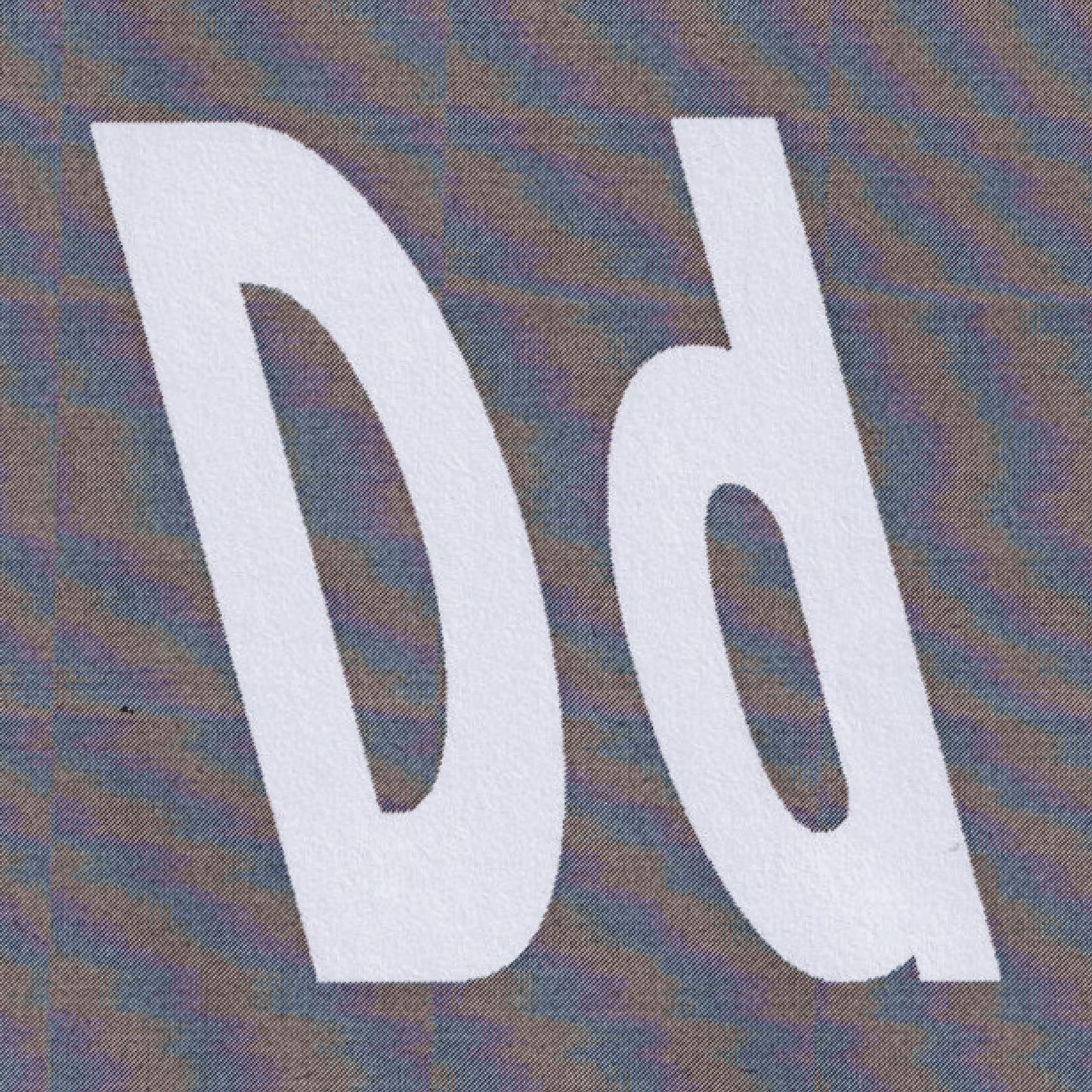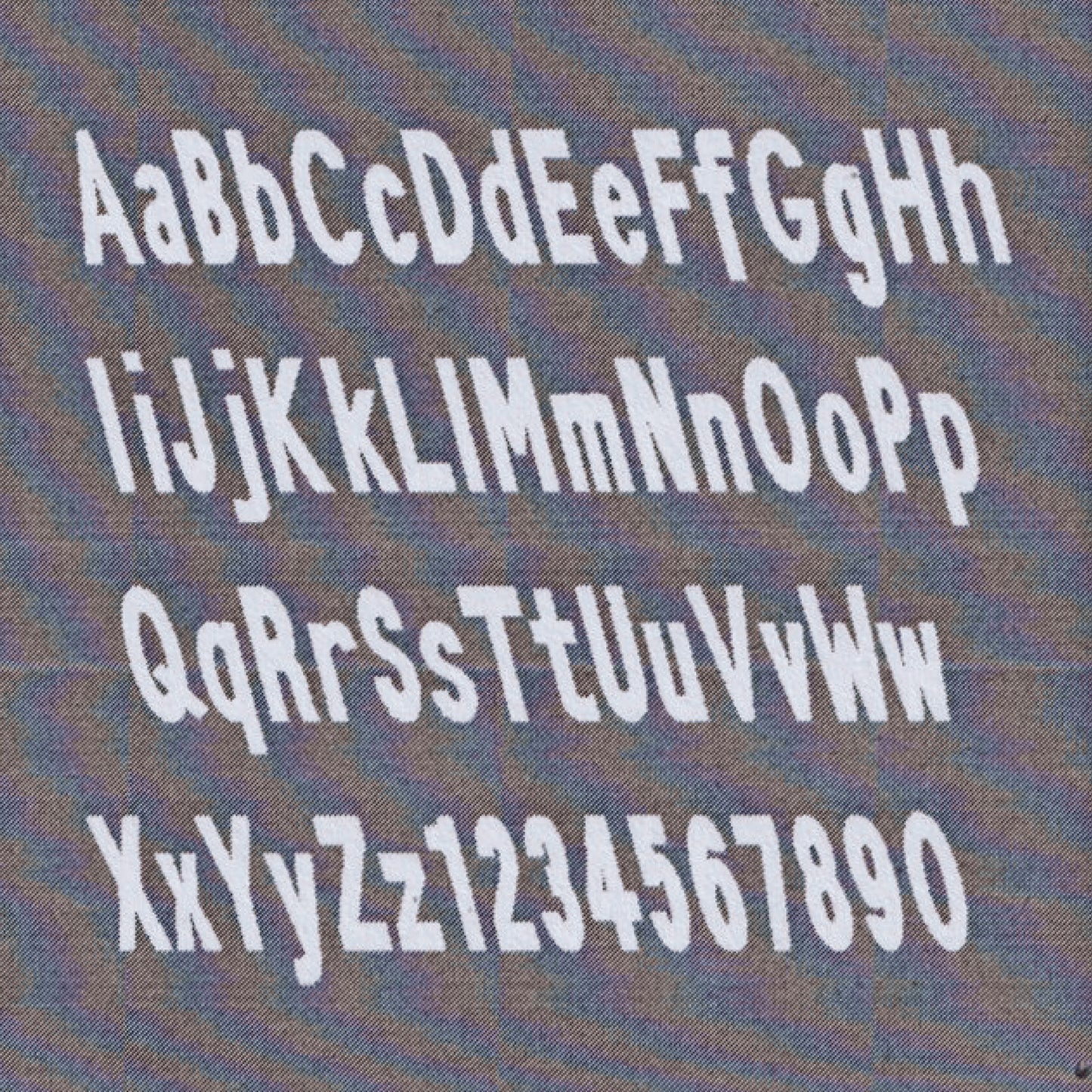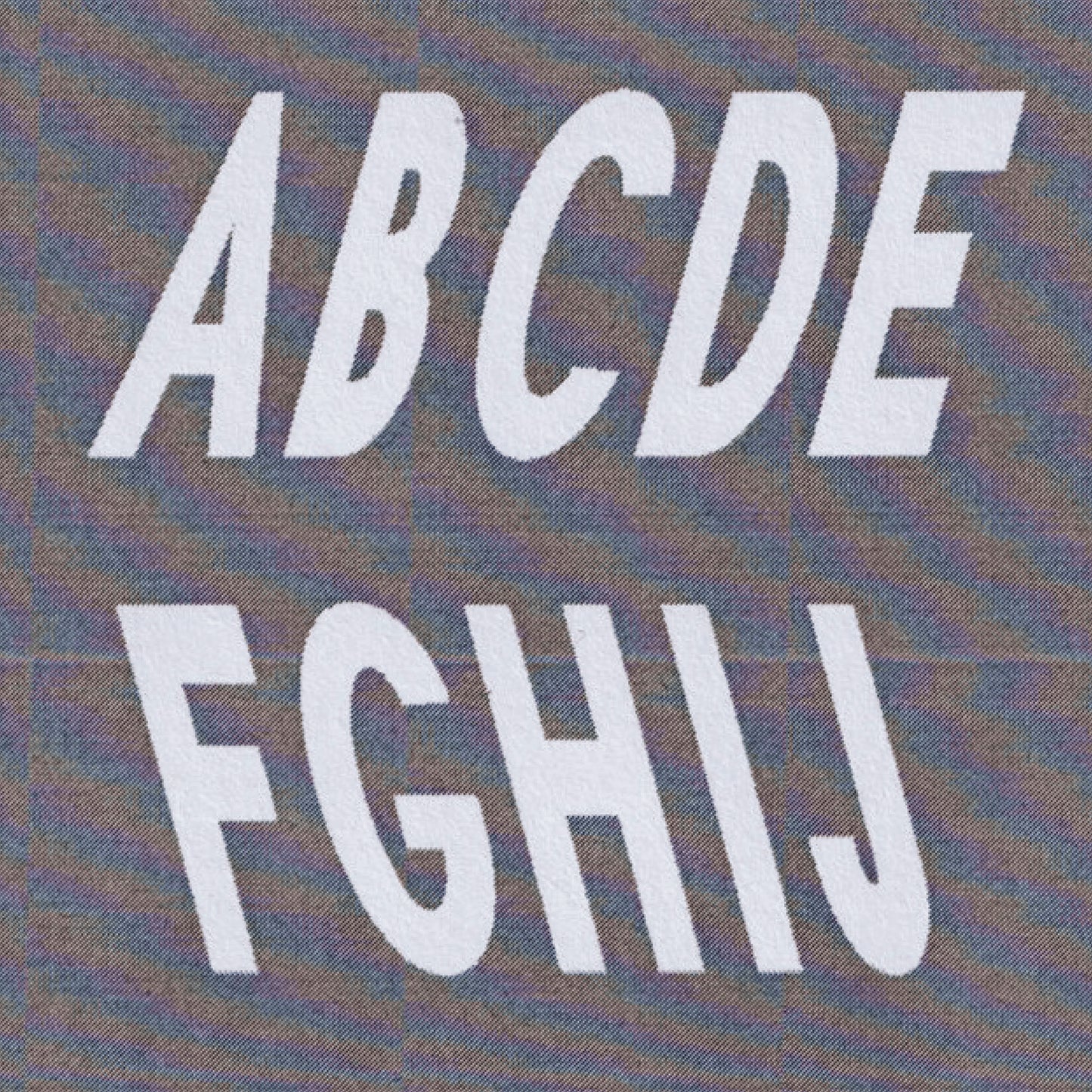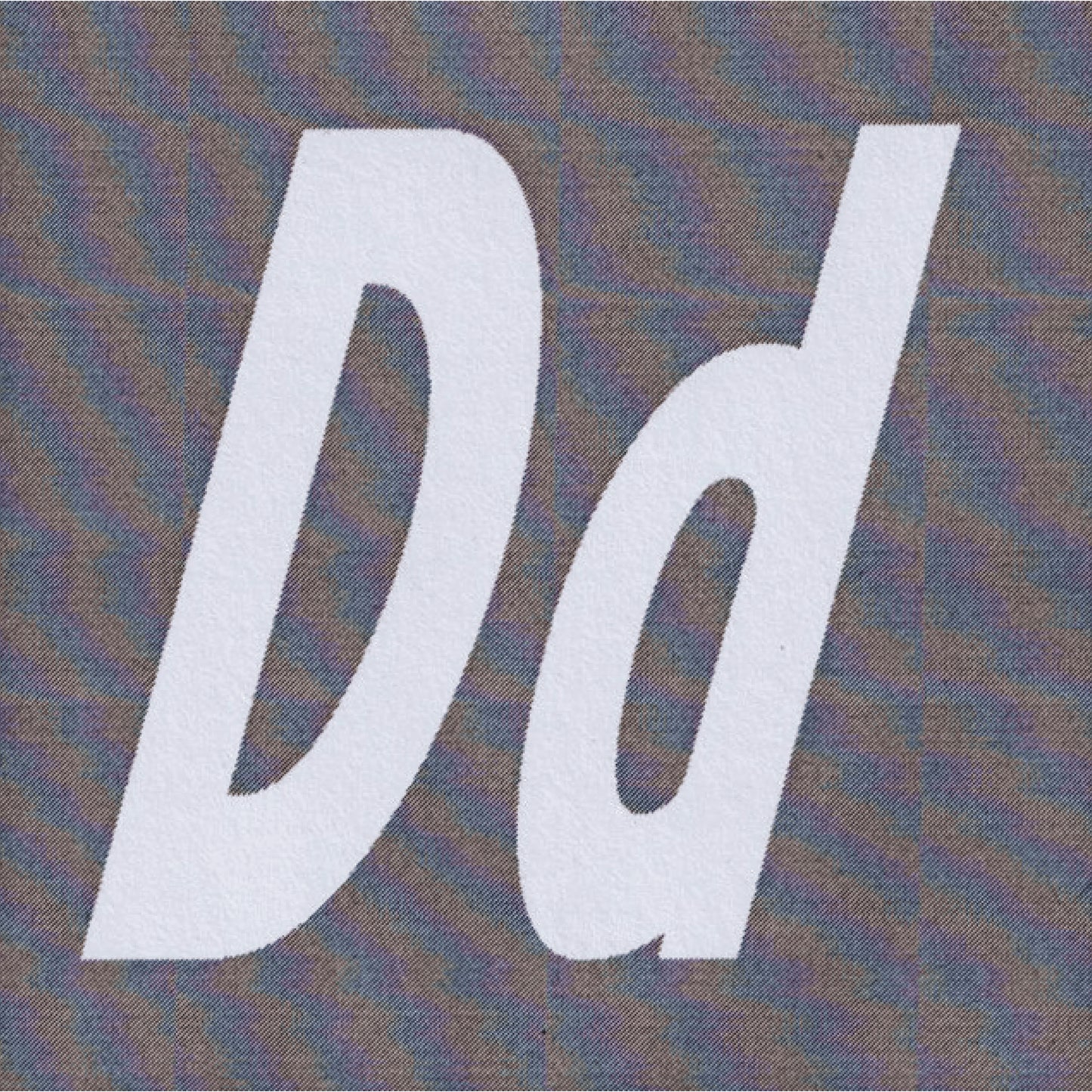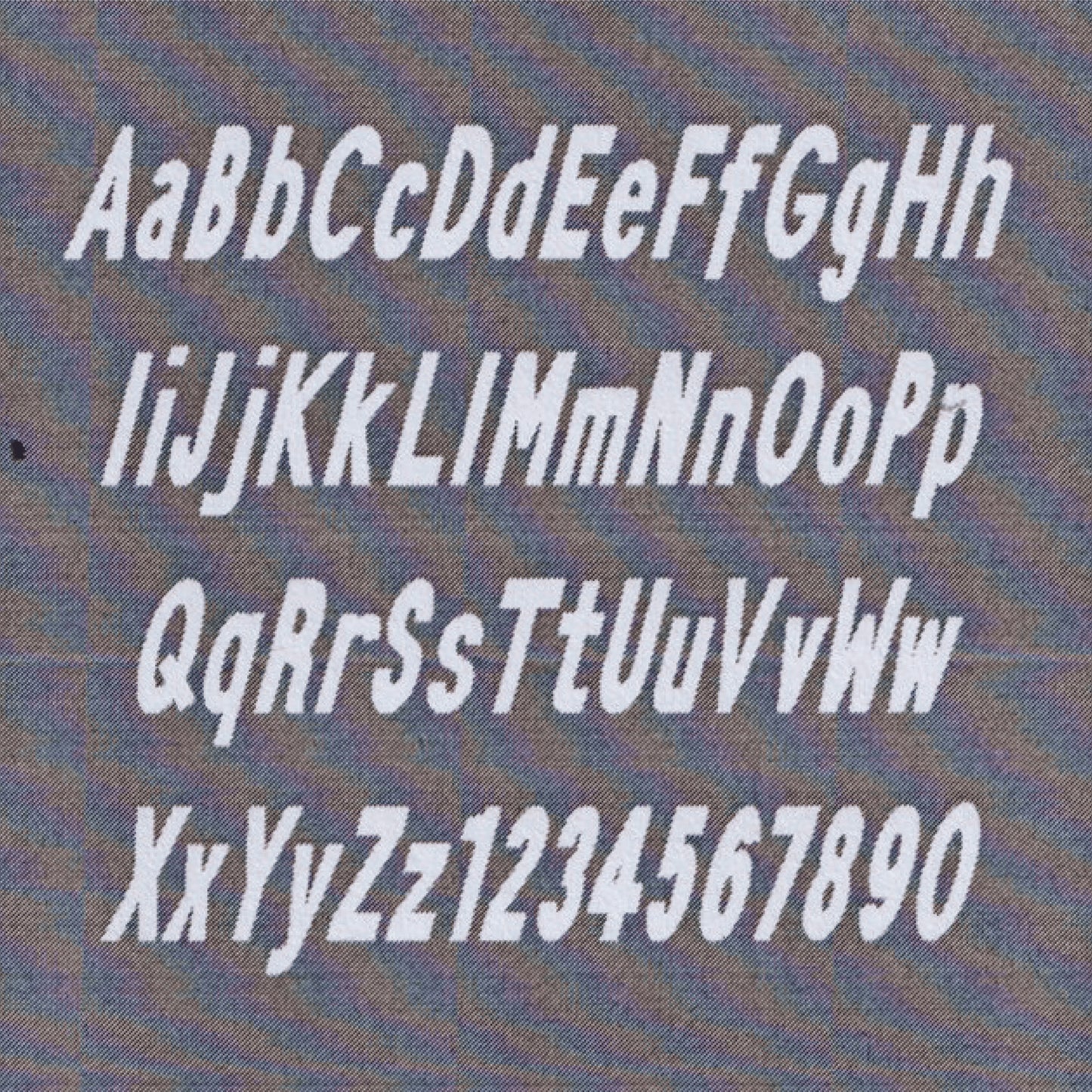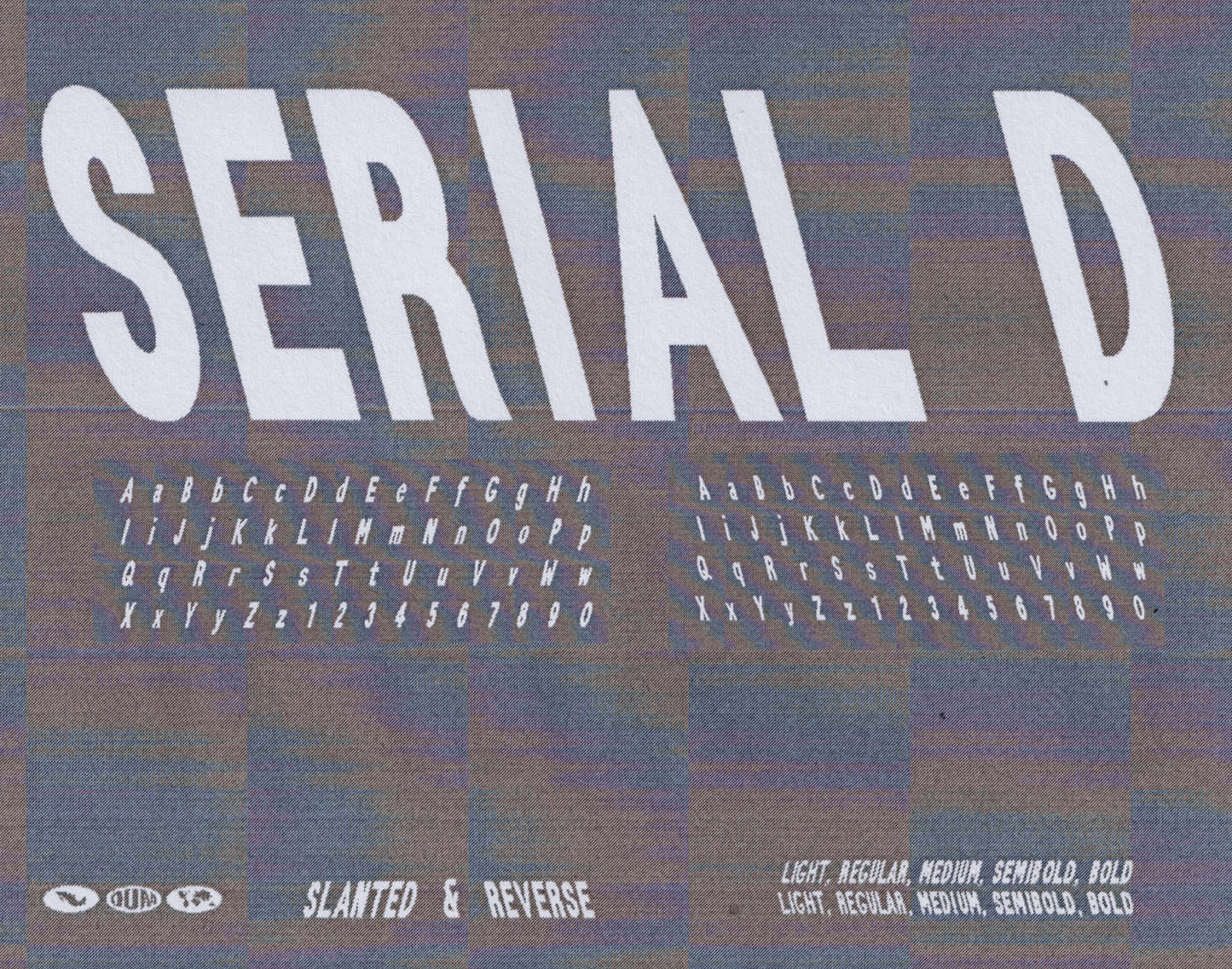
Serial D Slanted
Mario Julian Gutierrez
Serial D is the fourth typeface in the Serial family, but the first to be drawn, serving as the foundation for Serial A. Serial D maintains sharp corners, giving it a distinct, structured feel while preserving the same dimensions as Serial A.
Designed to make an impact and command attention, Serial D slanted is an extension of Serial D.
— 7 STYLES
— TOTAL GLYPHS: 436 GLYPHS
— LIGATURES
— ALTERNATES AND SUBSTITUTES